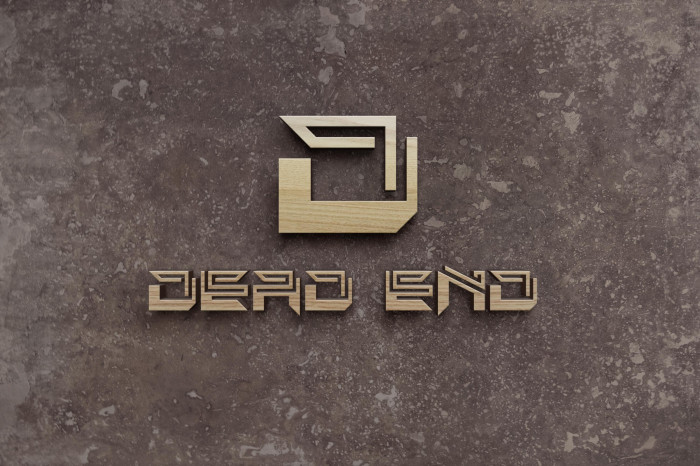
That looks awesome!
Angles, contrast, spiralling straight lines; this is really good!
I'm with the boys. Looking for improve the readability of the set, I offer you a few very personal suggestions for some of your glyphs, IMHO.
Wow! Much better now!
Nice and inspiring work. The demo picture is impressive. Why "Dead End"? Is it a reference to the cul-de-sac nature of the labyrinthine pattern? Congratulations to the TP. 10/10